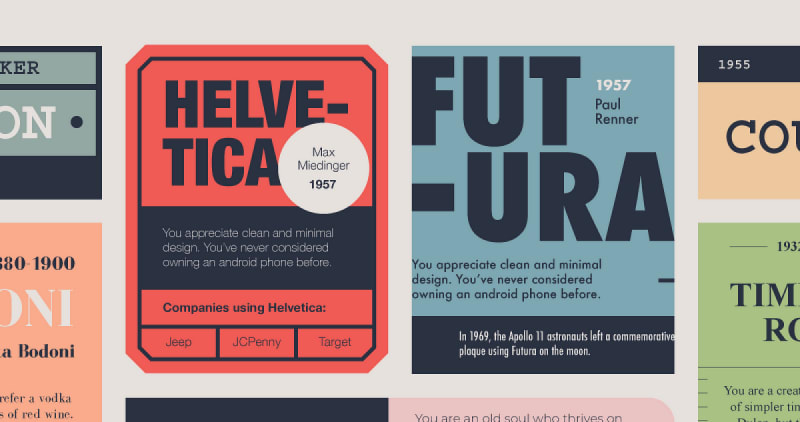
Typography has evolved significantly, offering an extensive array of typefaces. Despite the abundance, eight fonts have stood out for their unique characteristics: Garamond, Bodoni, Baskerville, Times New Roman, Century Expanded, Futura, Helvetica, and Inter. Each font brings its own historical significance and design ethos, from classics like Garamond and Baskerville that improve readability, to modern fonts like Inter designed for digital interfaces. These fonts are essential tools for any designer, adaptable to various projects from traditional print to contemporary digital design.